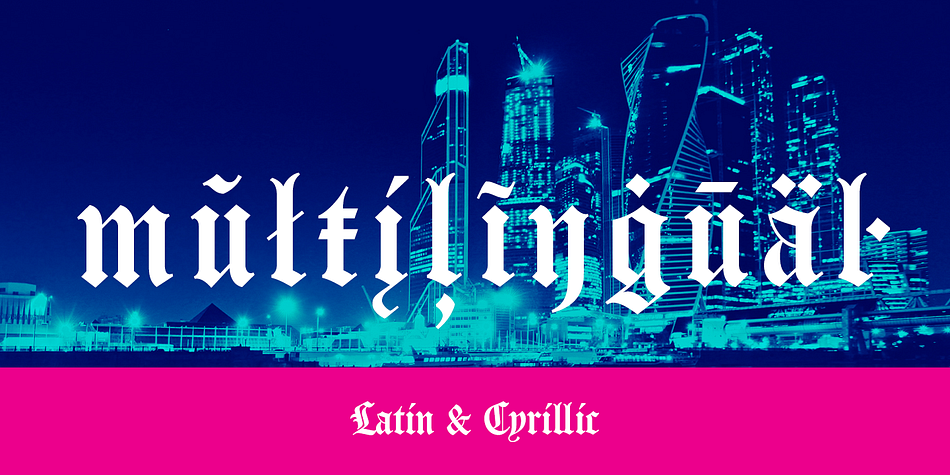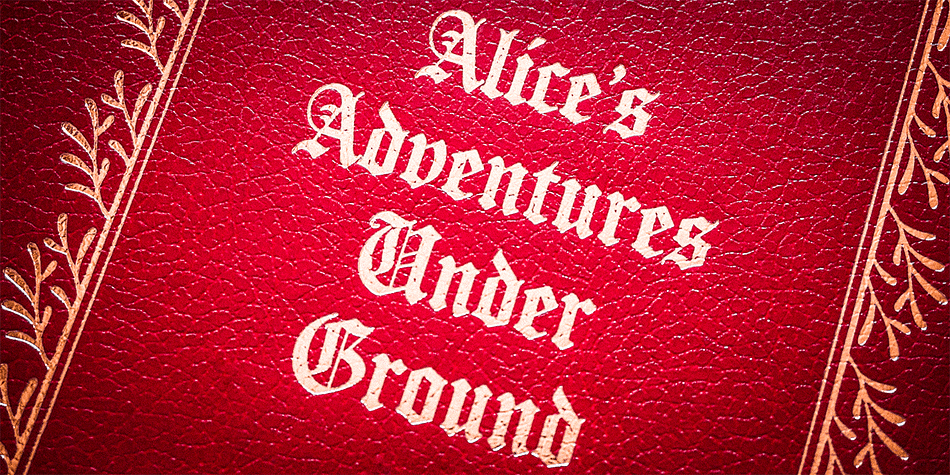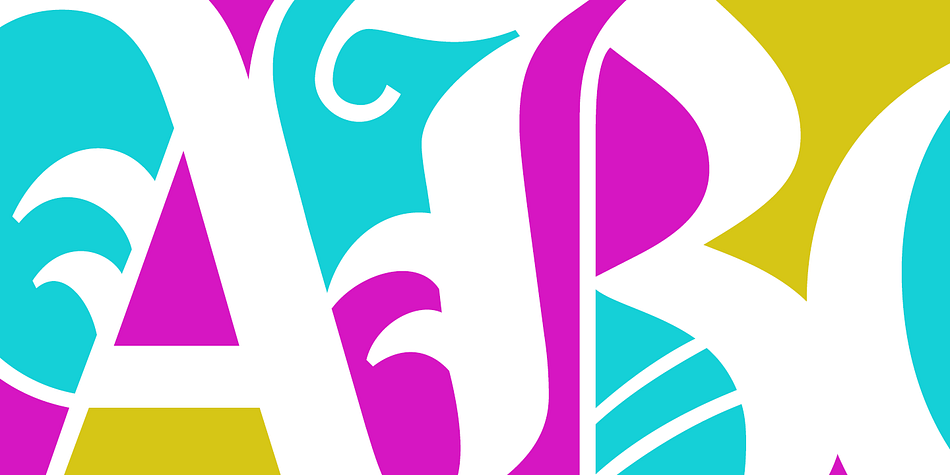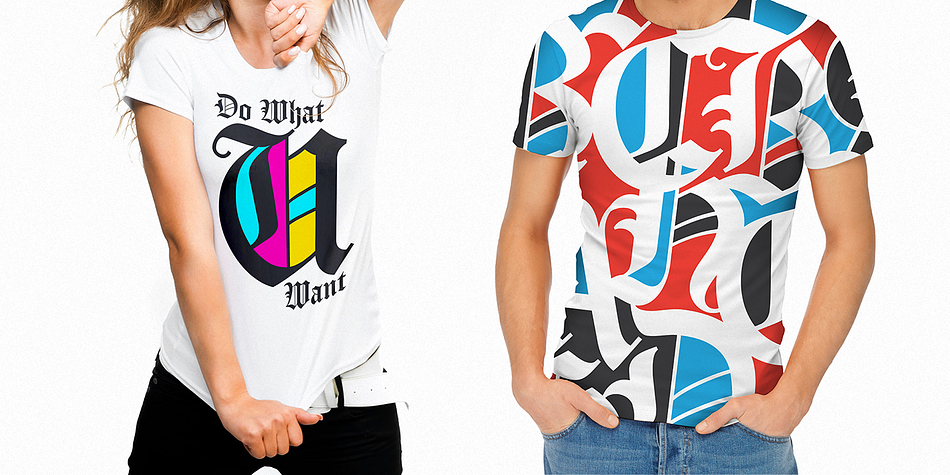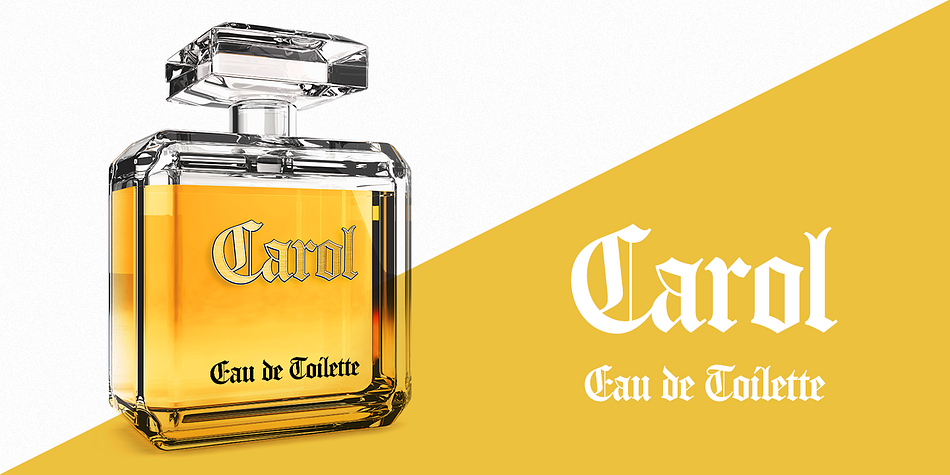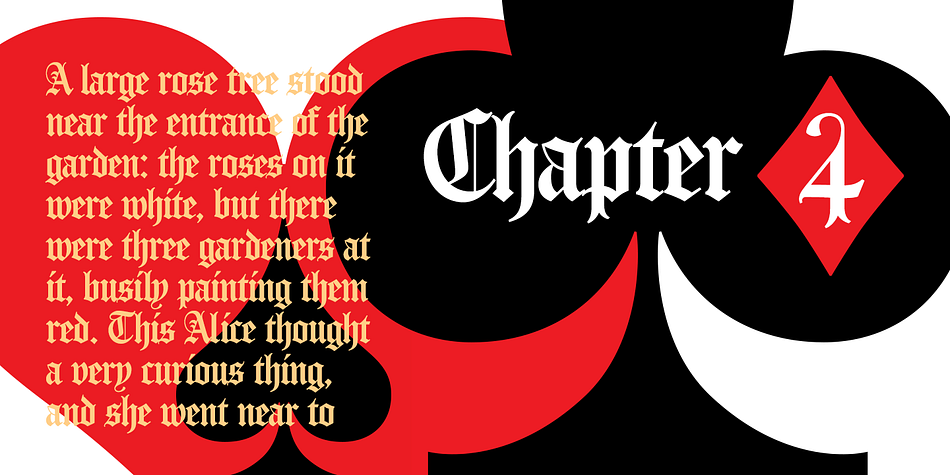
Designed by Alexandra Korolkova and Alexander Lubovenko, Carol Gothic is a blackletter font published by ParaType.
Carol Gothic is a traditional blackletter face closest to Linotype’s Old English. Typefaces of that style were used quite frequently in the 19th century English typography, so Carol Gothic fits perfectly for Victorian-looking designs but it is also suitable for any layouts which need blackletter.
The type is designed by Alexandra Korolkova and Alexander Lubovenko and released by ParaType in 2015.
Style | Blackletter |
Designers | Alexandra Korolkova, Alexander Lubovenko |